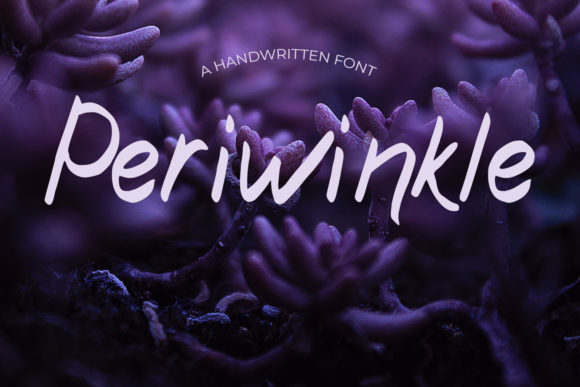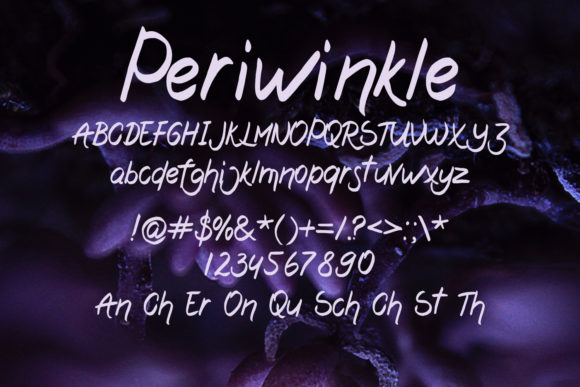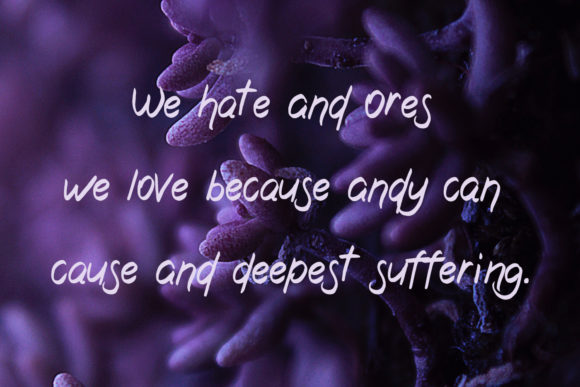
About Periwinkle Font
Periwinkle is a simple and natural handwritten font. Whether you’re looking for fonts for Instagram or calligraphy scripts for DIY projects, this font will turn any creative idea into a true piece of art!